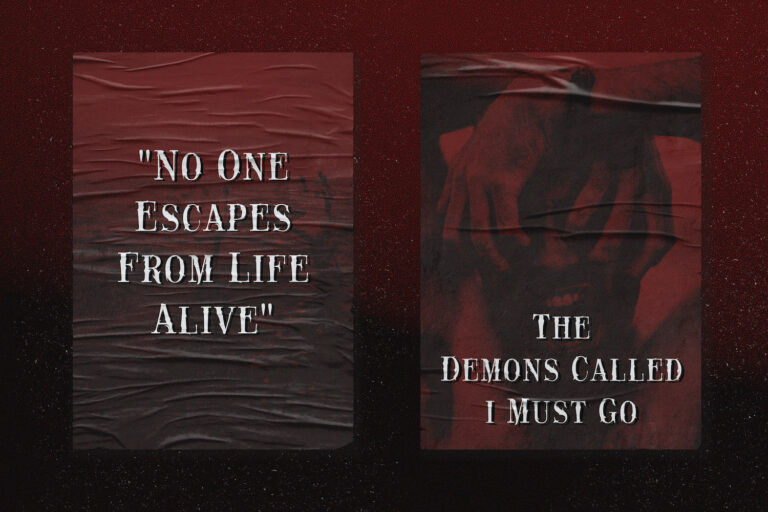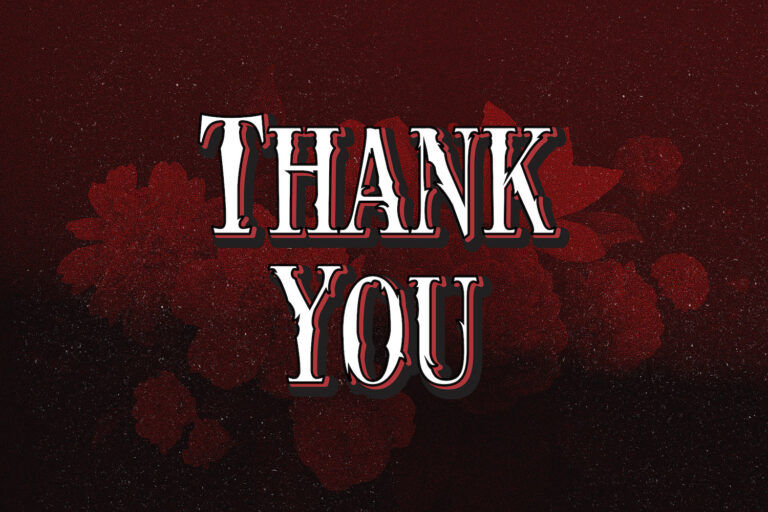
Black Rose is a unique display font. It features a spooky feel that makes it perfect for any project that requires a horror-theme. Use it for movies, flyers, posters, Halloween crafting and much more!
FEATURES
– Stylistic Alternates
– Ligatures
– Uppercase and Lowercase letters
– Numbering and Punctuations
– Multilingual Support